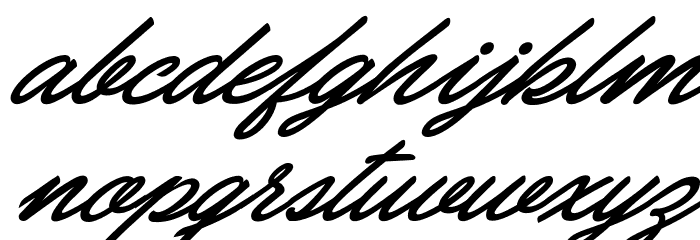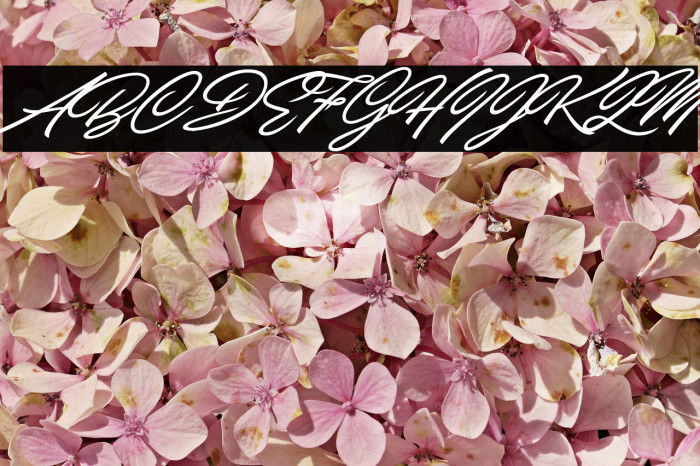
Carolina Hills Personal Use Font
This font features an elegant, flowing script style that mimics the fluidity of cursive handwriting. The characters are interconnected, creating a seamless and sophisticated appearance. The uppercase letters are tall and graceful, while the lowercase letters maintain a consistent baseline with gentle curves and loops. The font exudes a sense of elegance and refinement, making it suitable for formal invitations, branding, and decorative purposes. The overall design is balanced, with a slight slant that adds to its dynamic and lively character.
An elegant, flowing script font with interconnected characters and a refined appearance.
- Proposed Projects: Ideal for wedding invitations, elegant branding, greeting cards, and decorative signage.
- Category: Script
- Character Spacing: Tight
- Overall Style: Elegant
- Use Case: Logos, Invitations, Decorative text